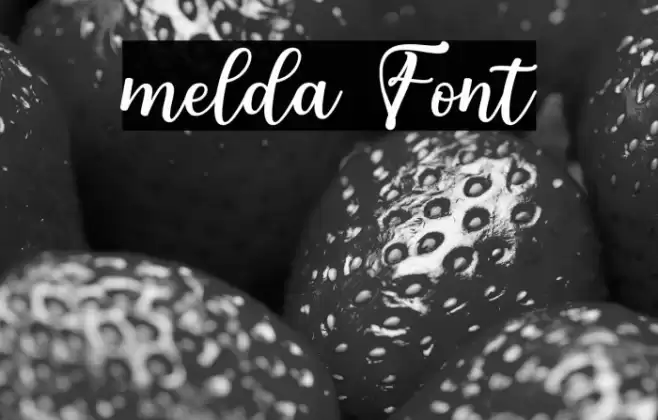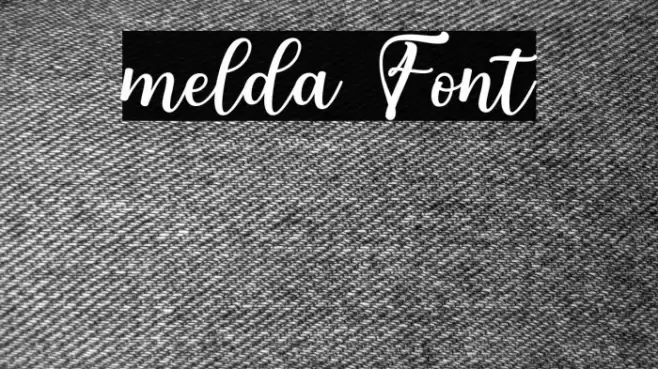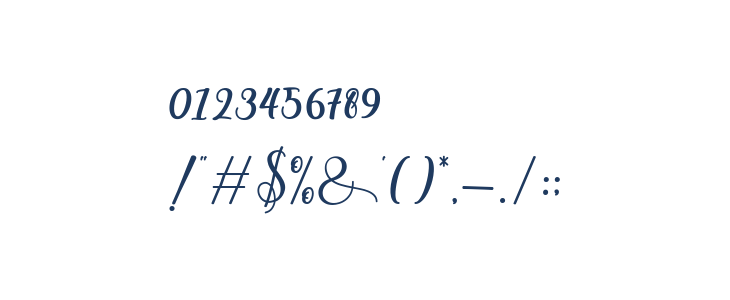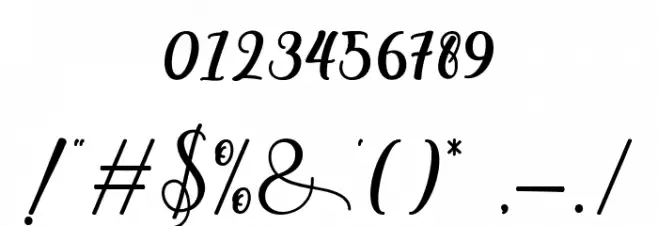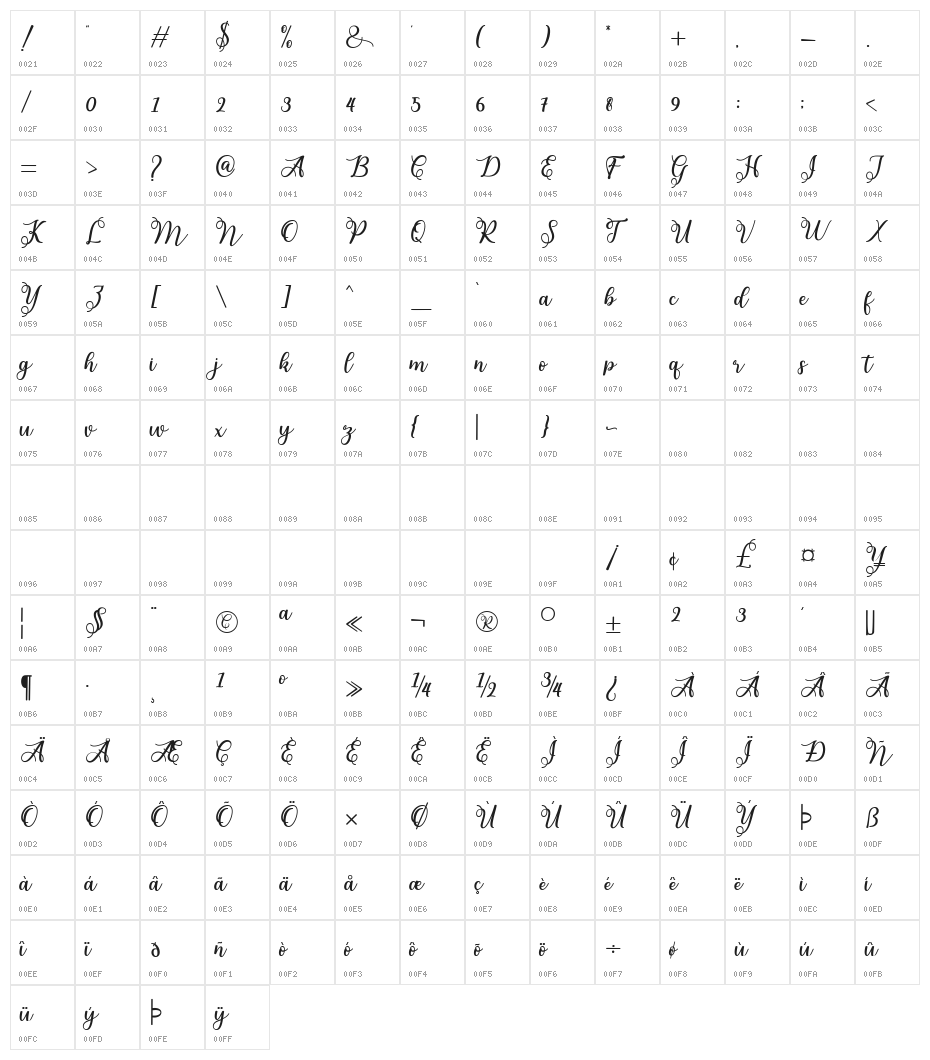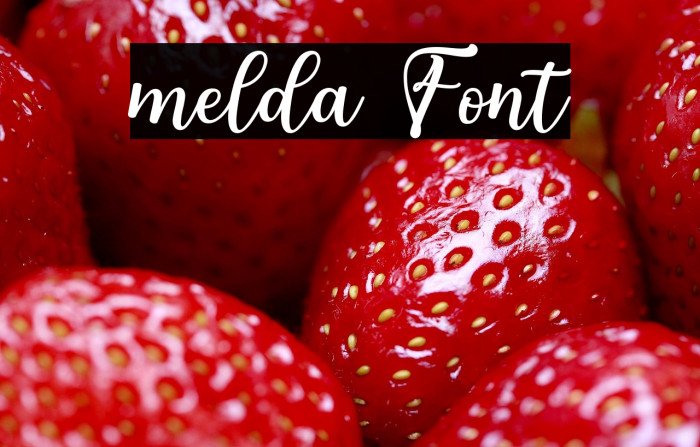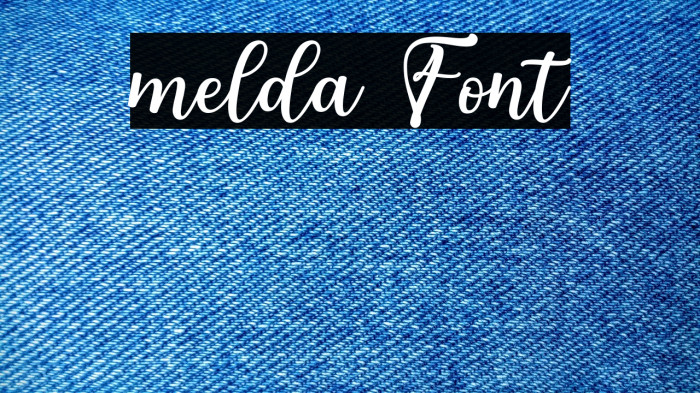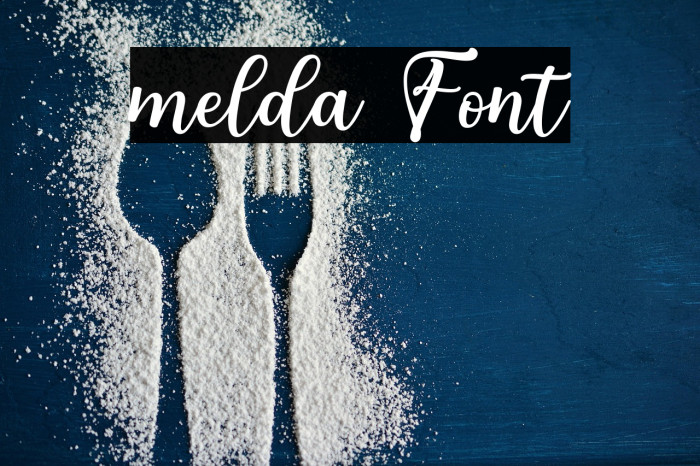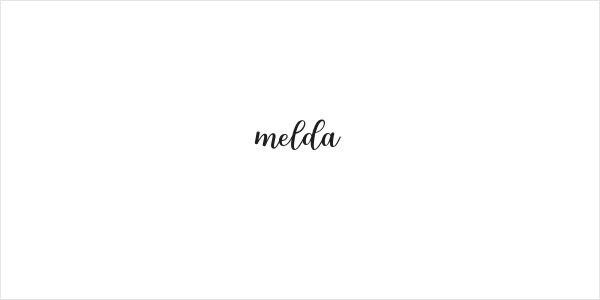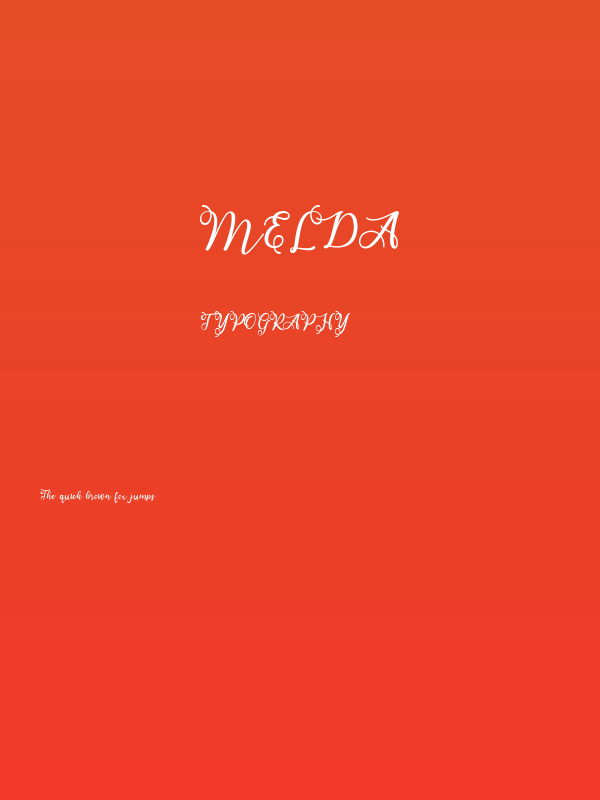
melda Font
melda Description
This font exudes elegance and sophistication with its flowing, cursive style. The uppercase letters feature intricate loops and swirls, adding a touch of flair and creativity. The lowercase letters maintain a smooth and consistent flow, making it ideal for a variety of decorative purposes. The numerals are clear and well-defined, complementing the overall aesthetic. Special characters are designed with the same attention to detail, ensuring a cohesive look across all elements. This font is perfect for projects that require a touch of elegance and style, such as invitations, branding, and artistic designs.
An elegant, cursive font with intricate loops and swirls from Regular fonts.
- Proposed Projects: Ideal for wedding invitations, branding, artistic designs, and decorative projects.
- Overall Style: Elegant
- Use Case: Headlines, Logos, Invitations